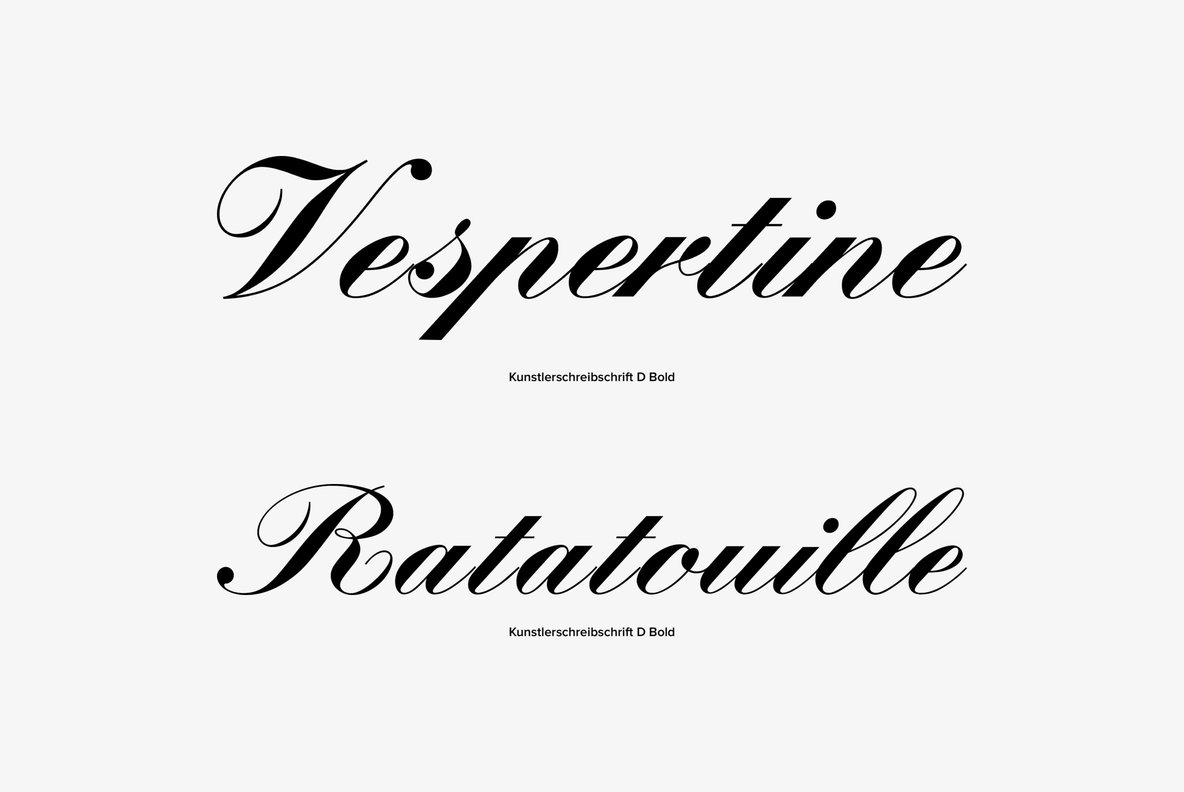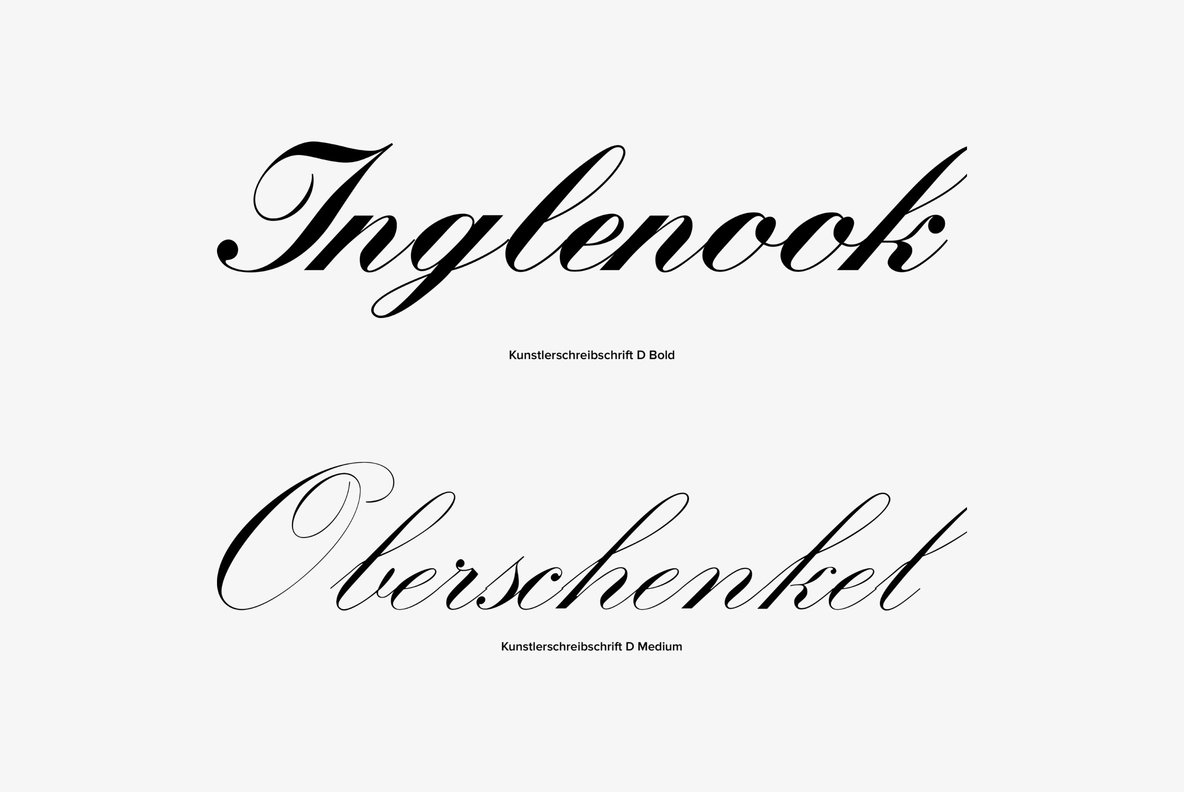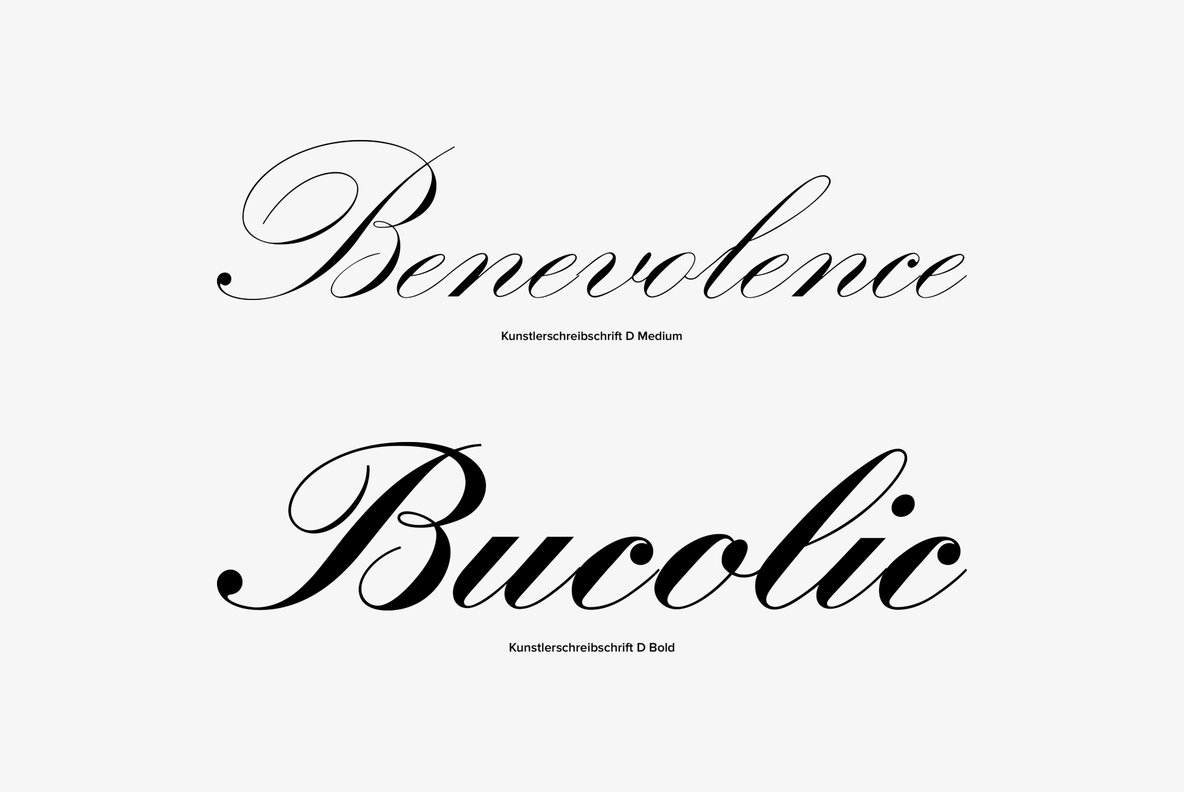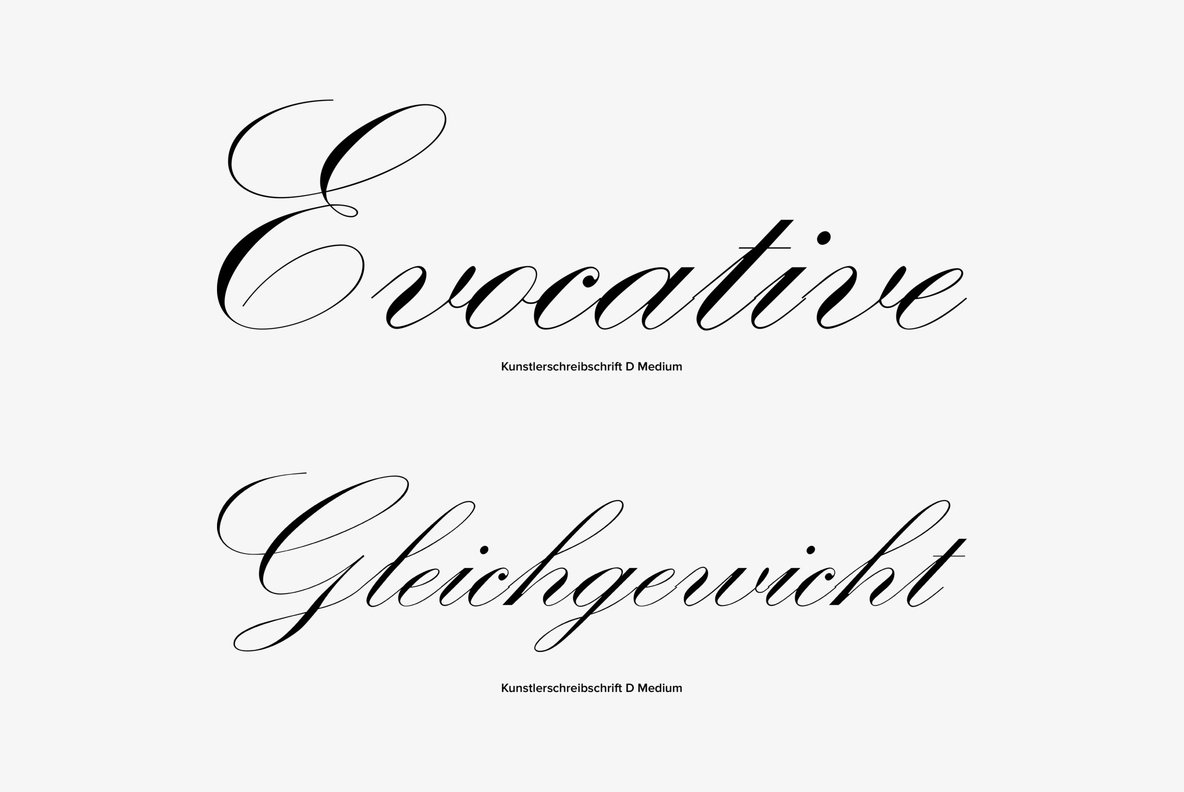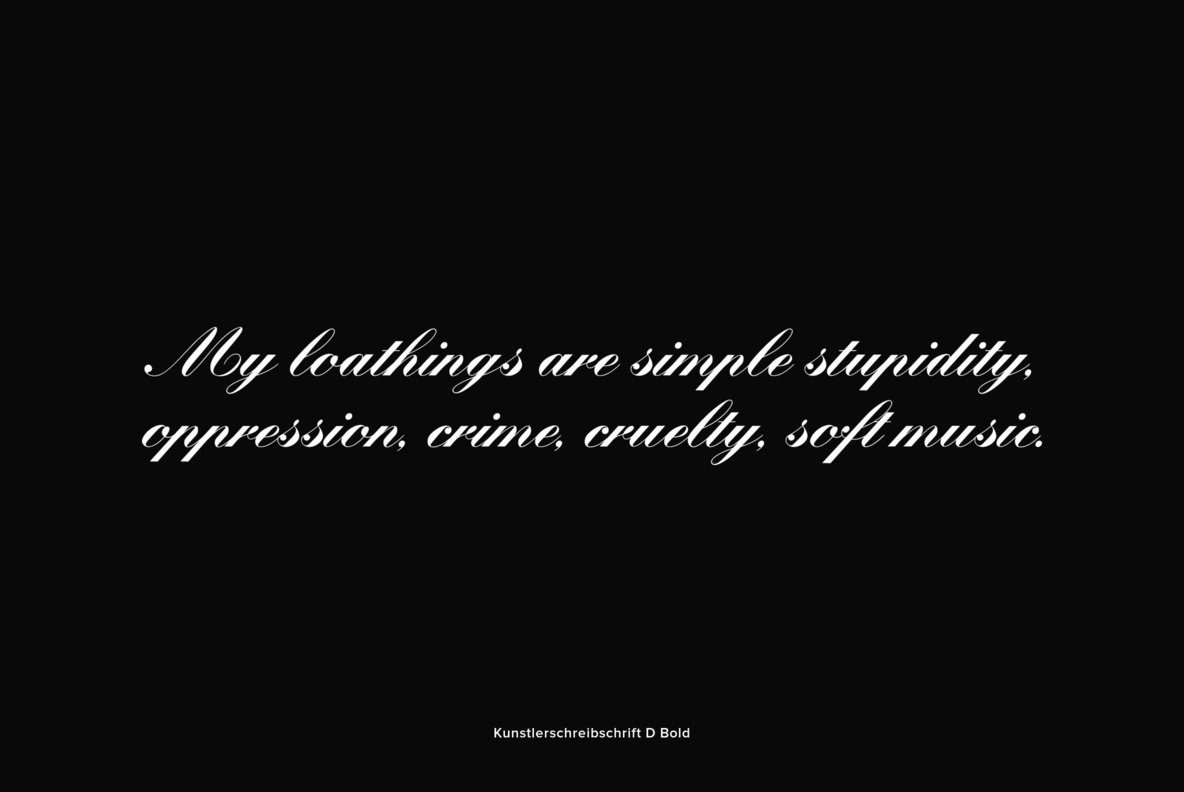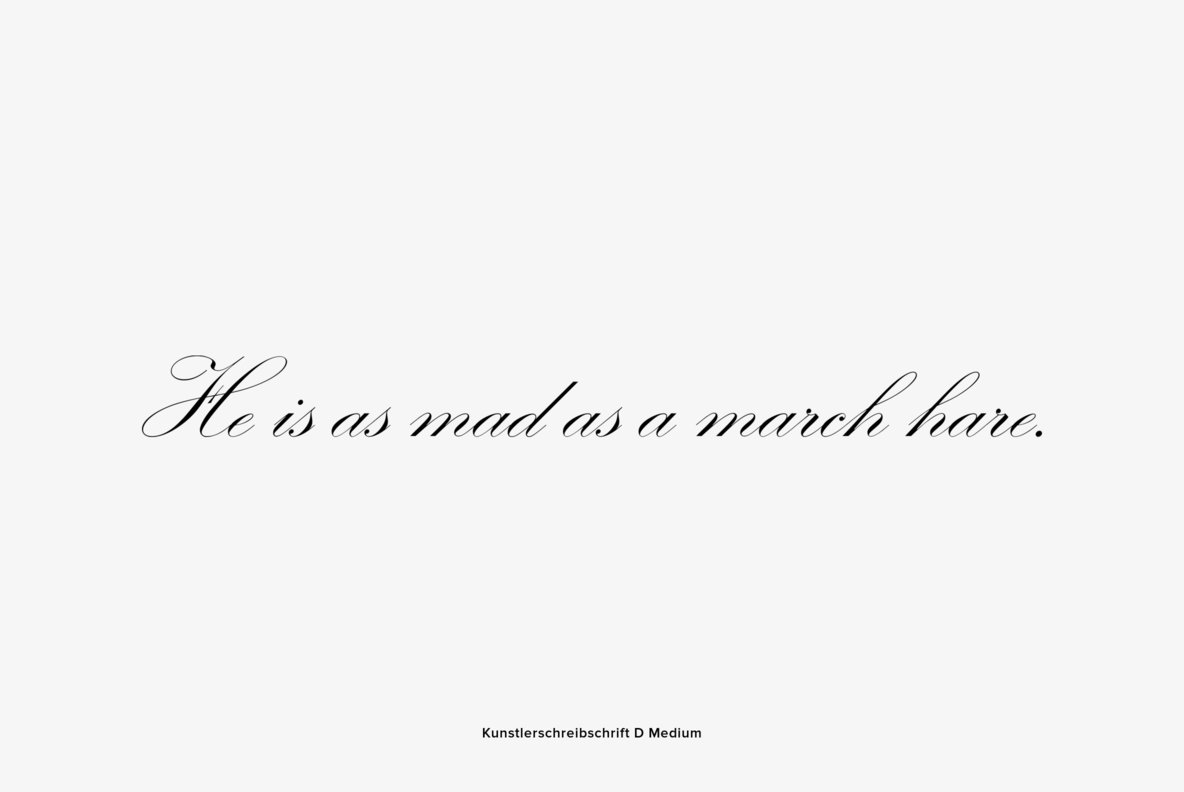
Kunstlerschreibschrift
Kunstlerschreibschrift is a classic script font release by URW. Contains language support for West, East, Turkish, Baltic, and Romanian.